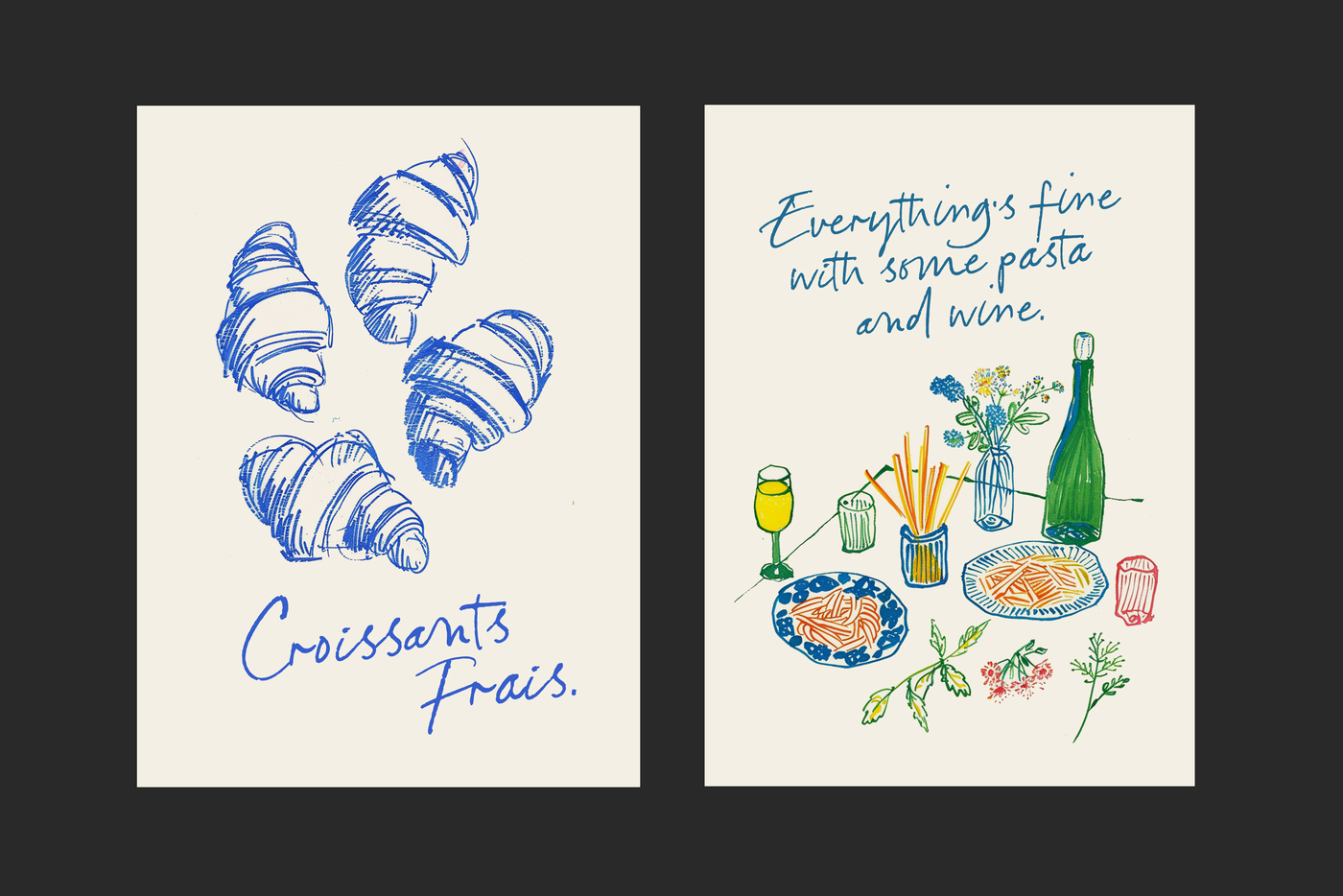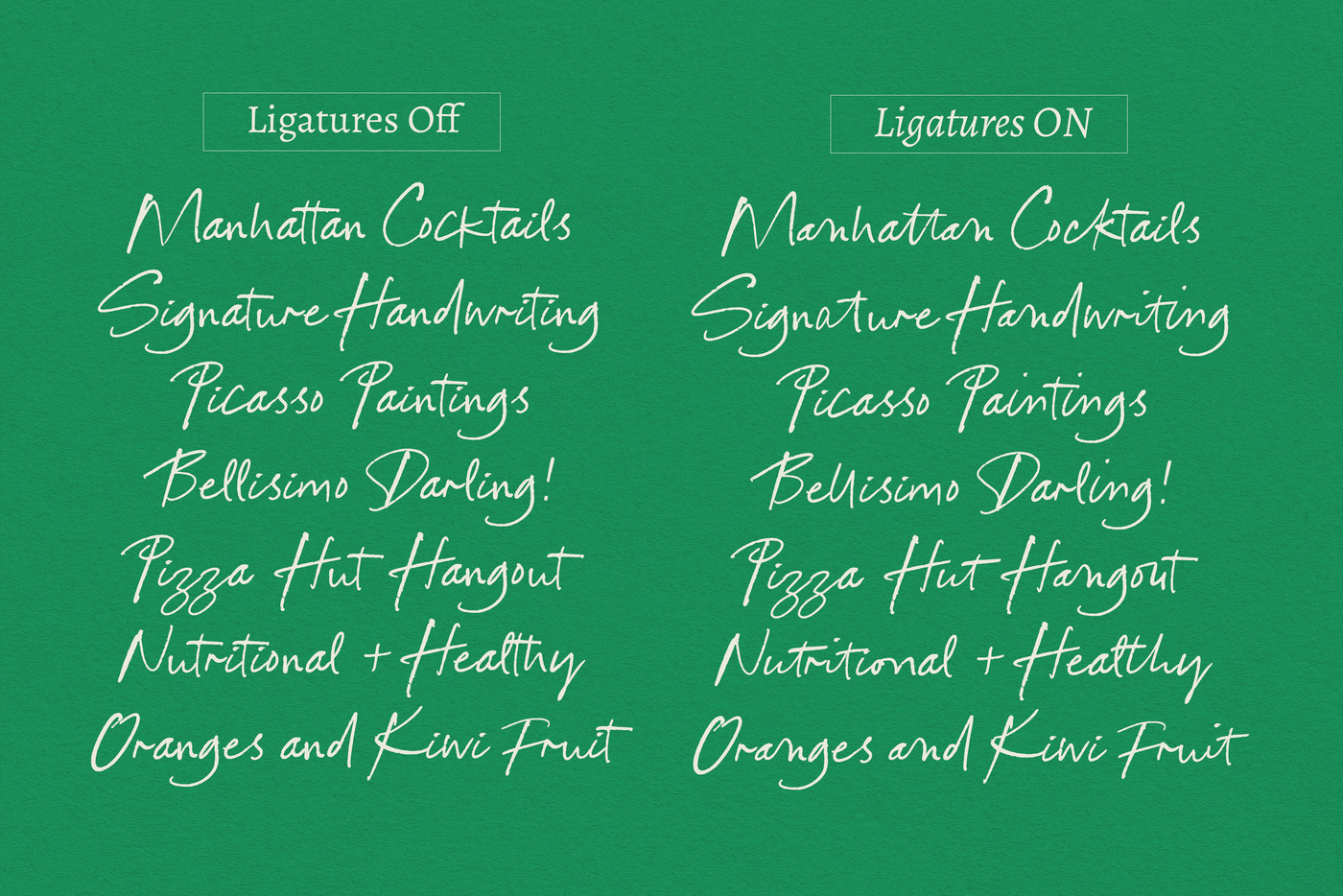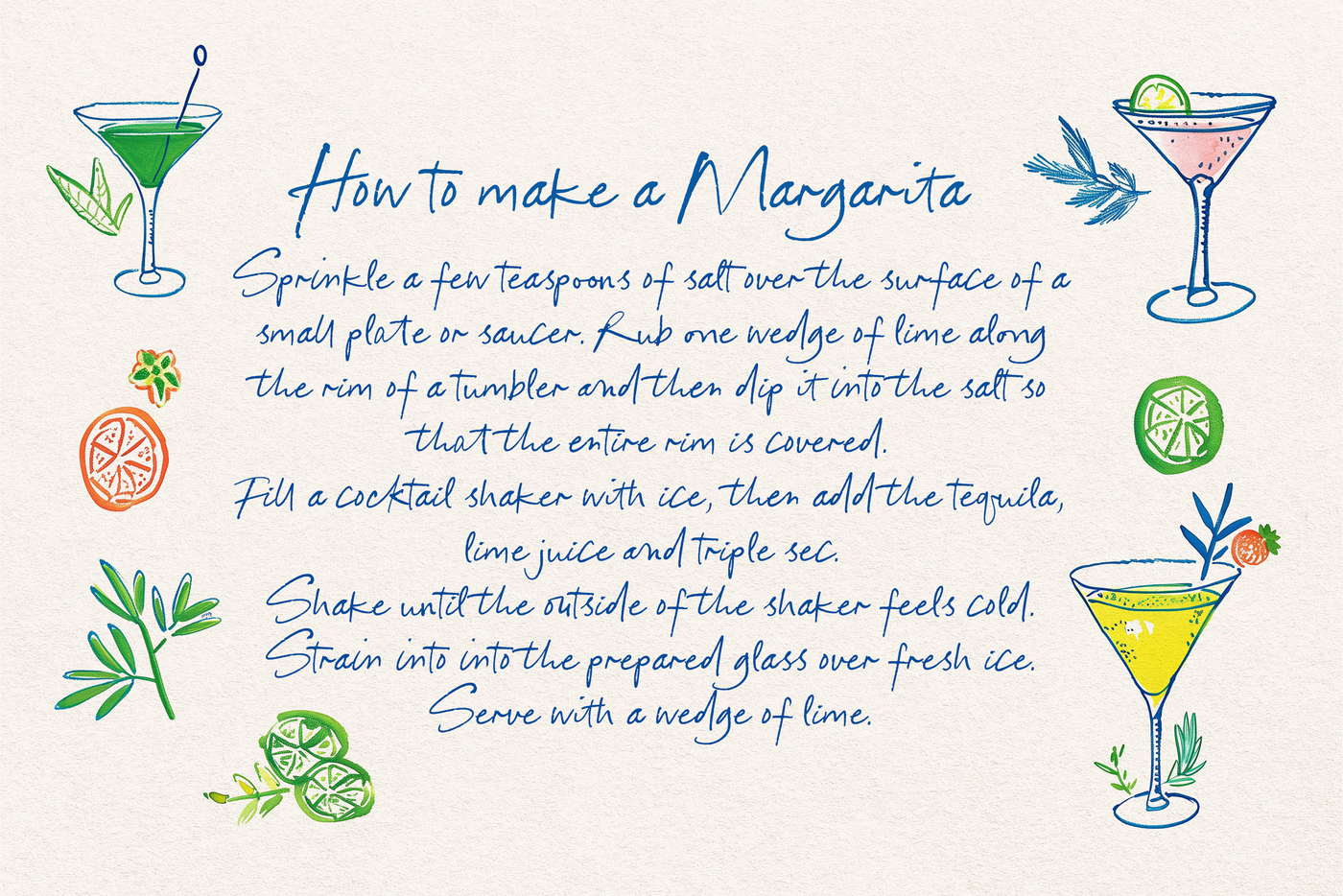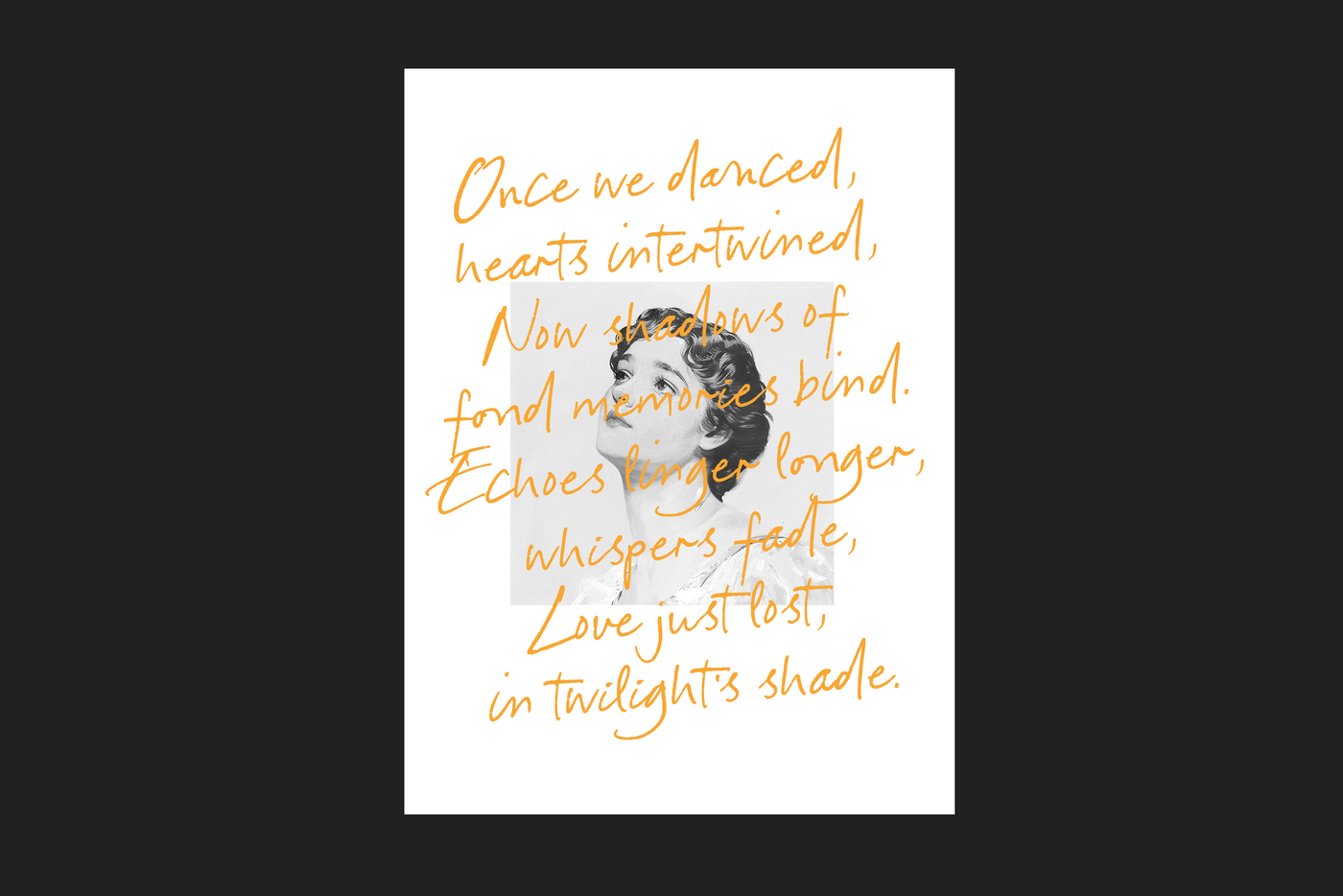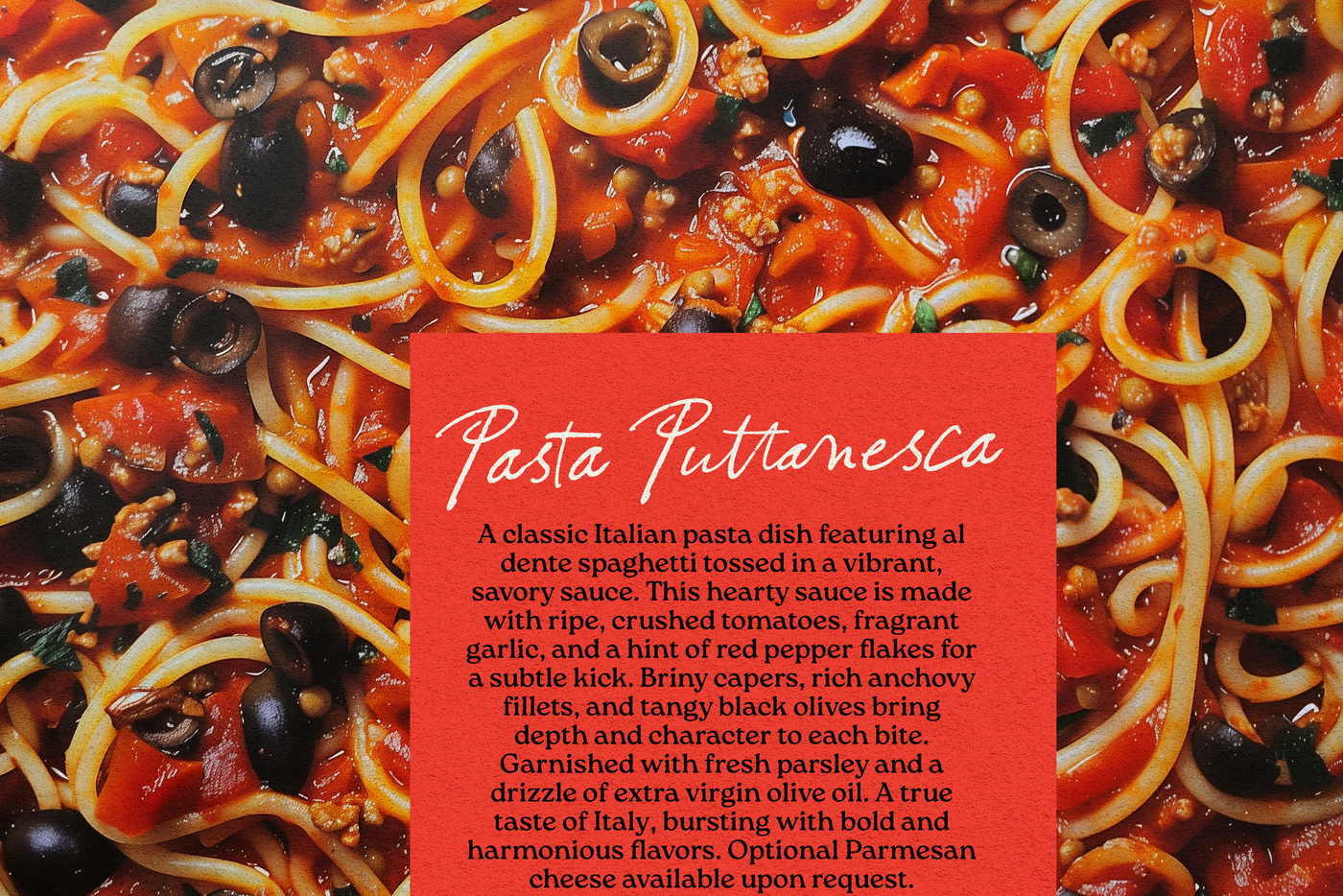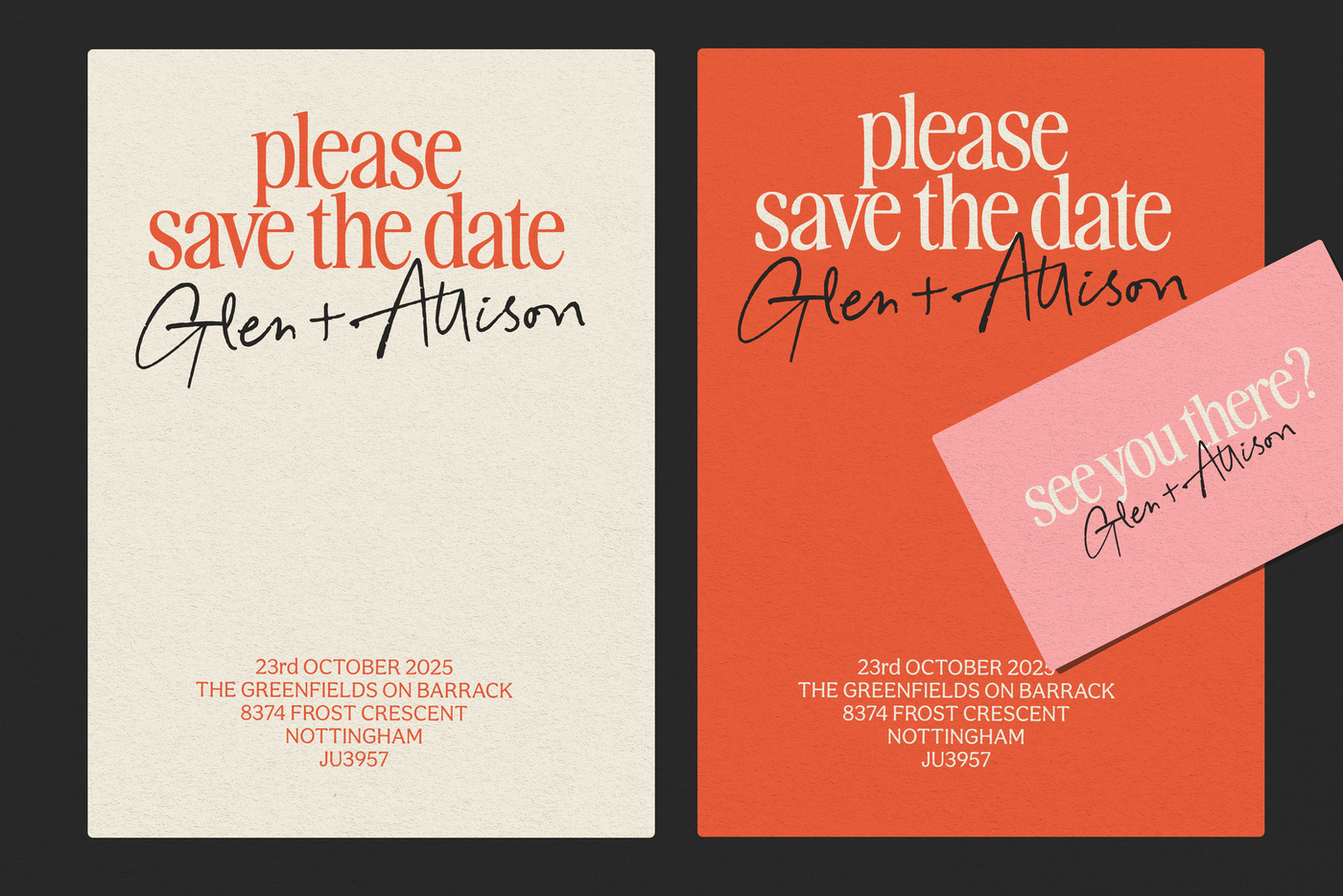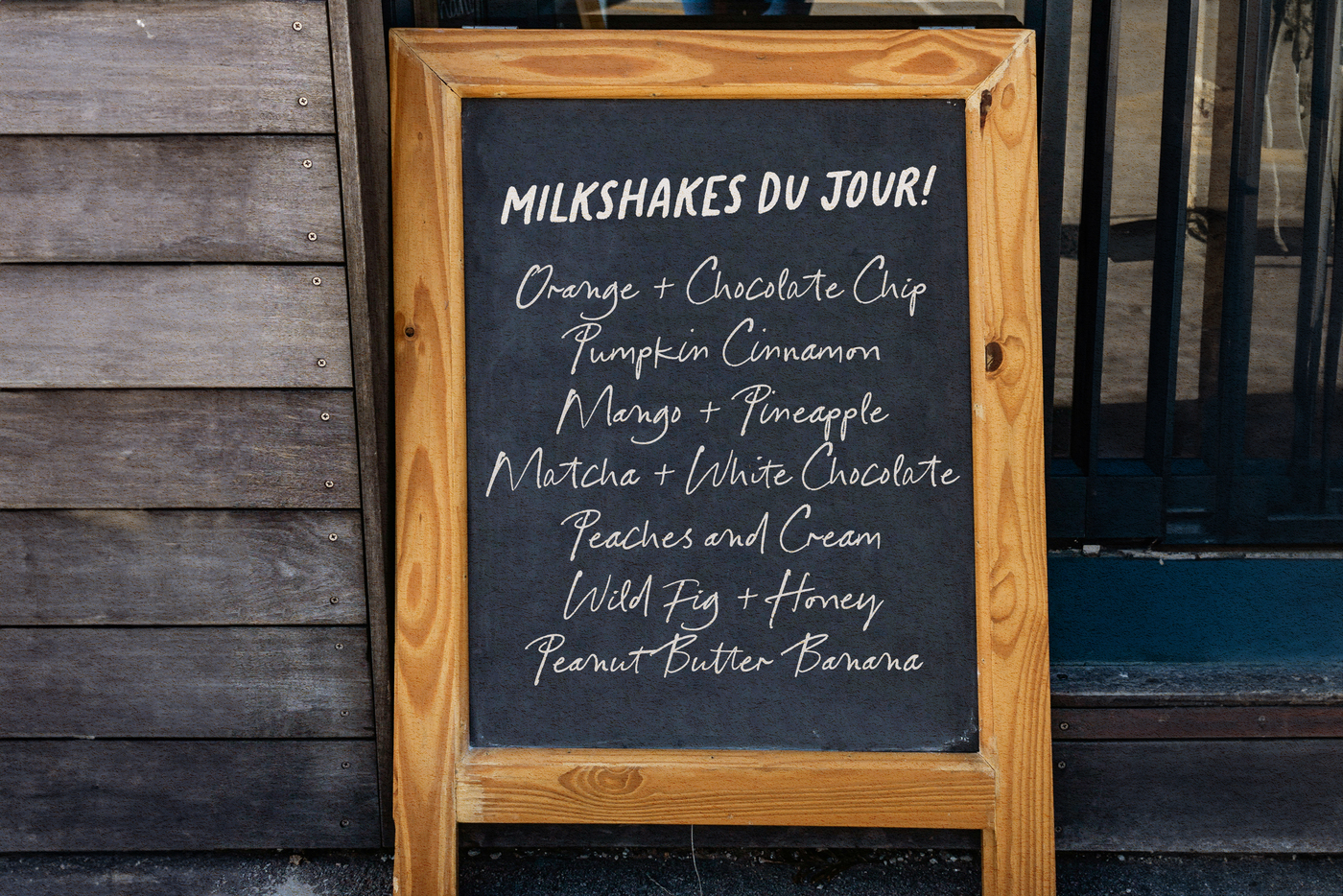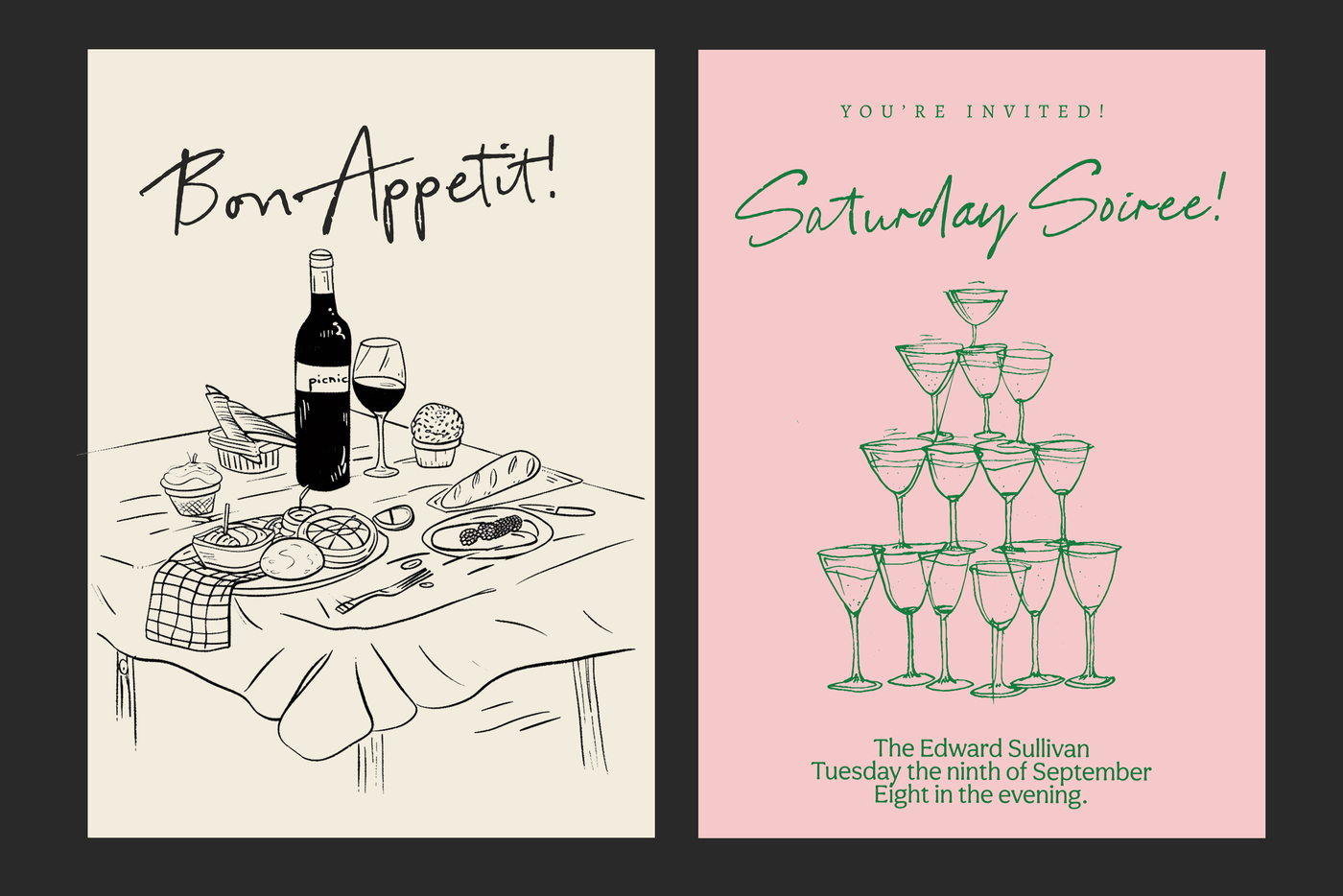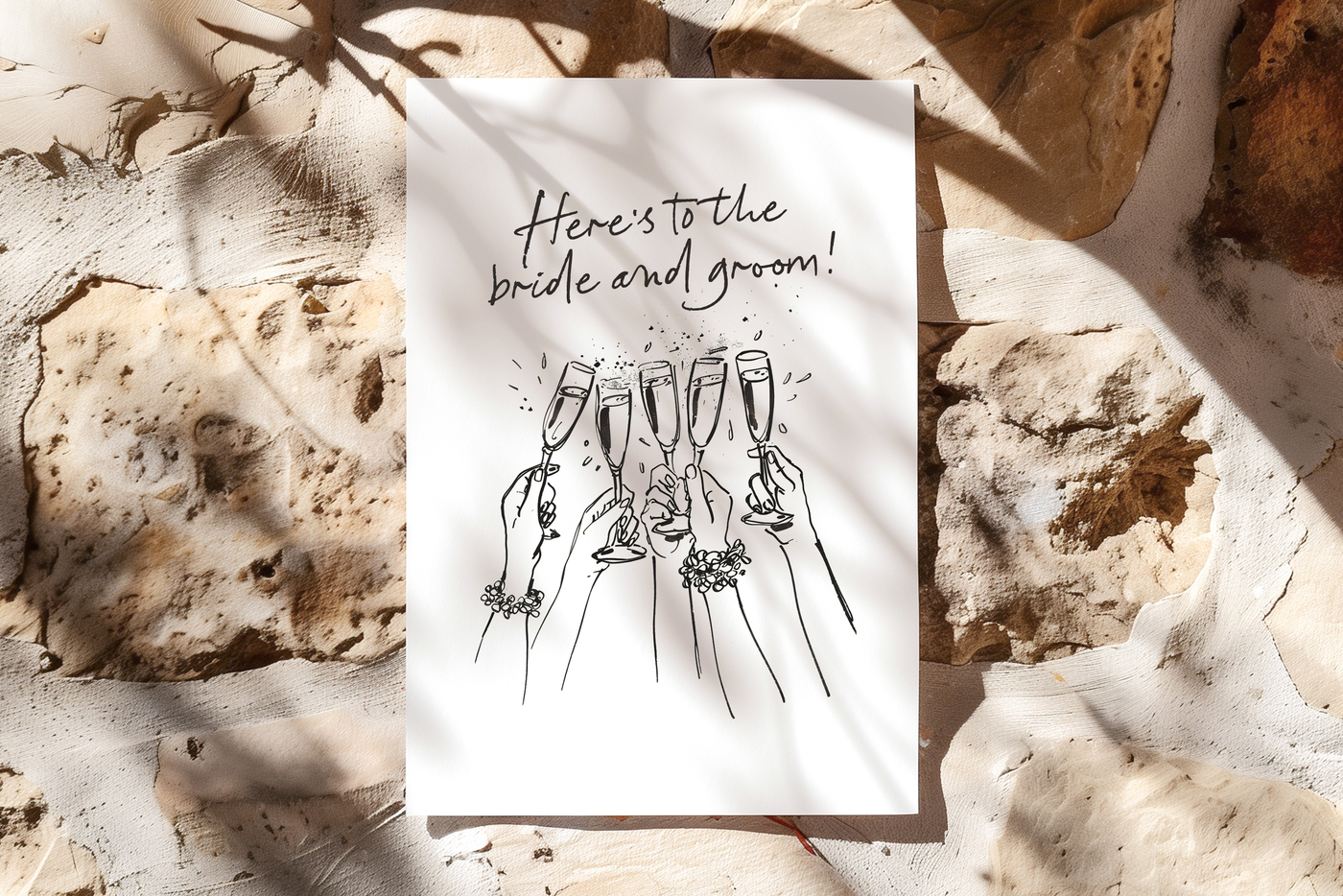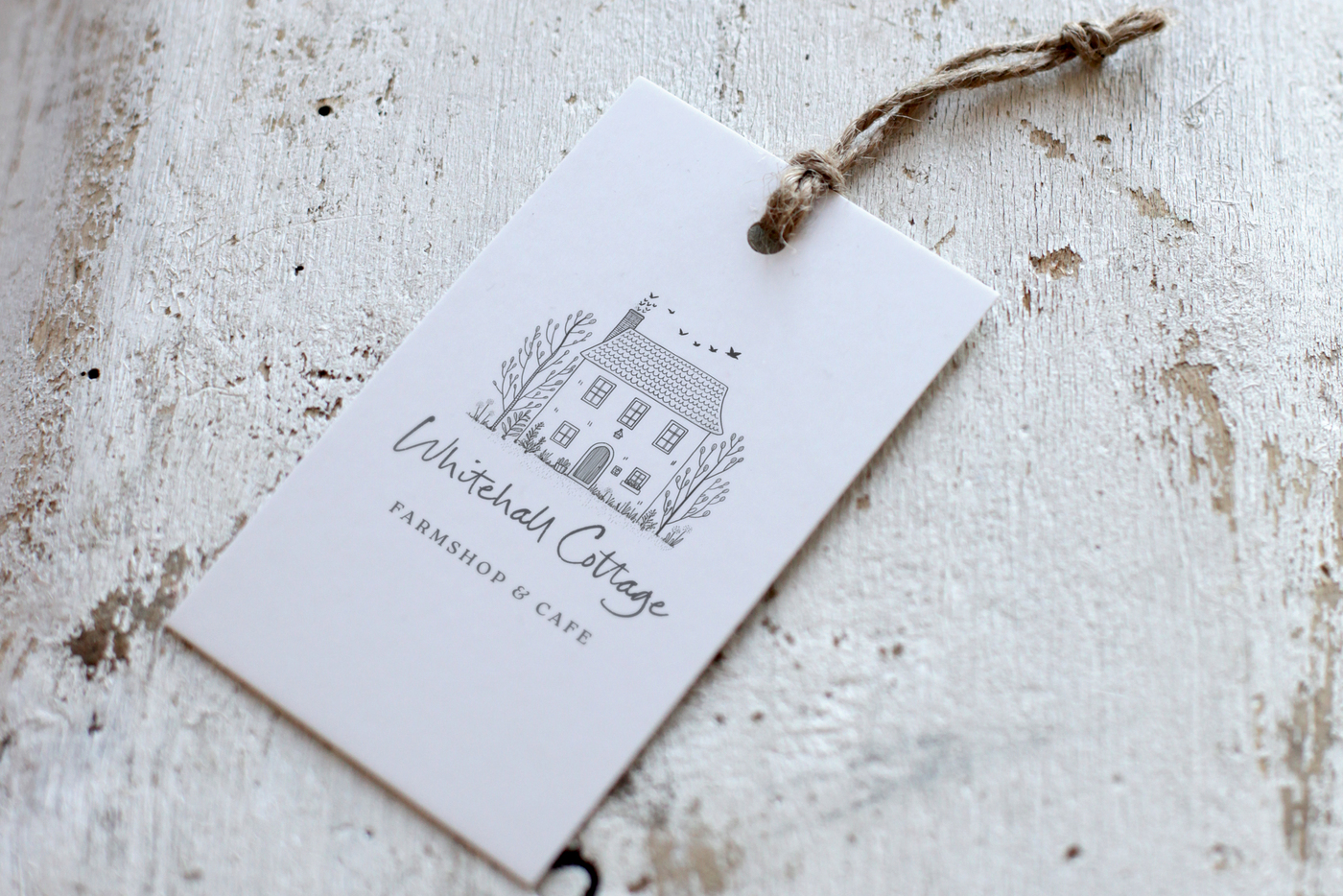
Manhattan Cocktails Typeface
Manhattan Cocktails Typeface by Nicky Laatz
Say hello to Manhatten Cocktails! - A ligature-based, casual handwriting script typeface, with a natural lighthearted feel.